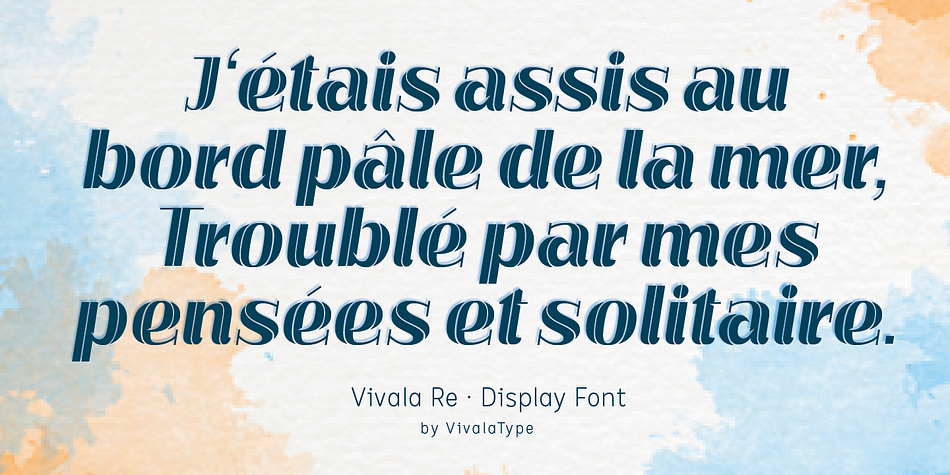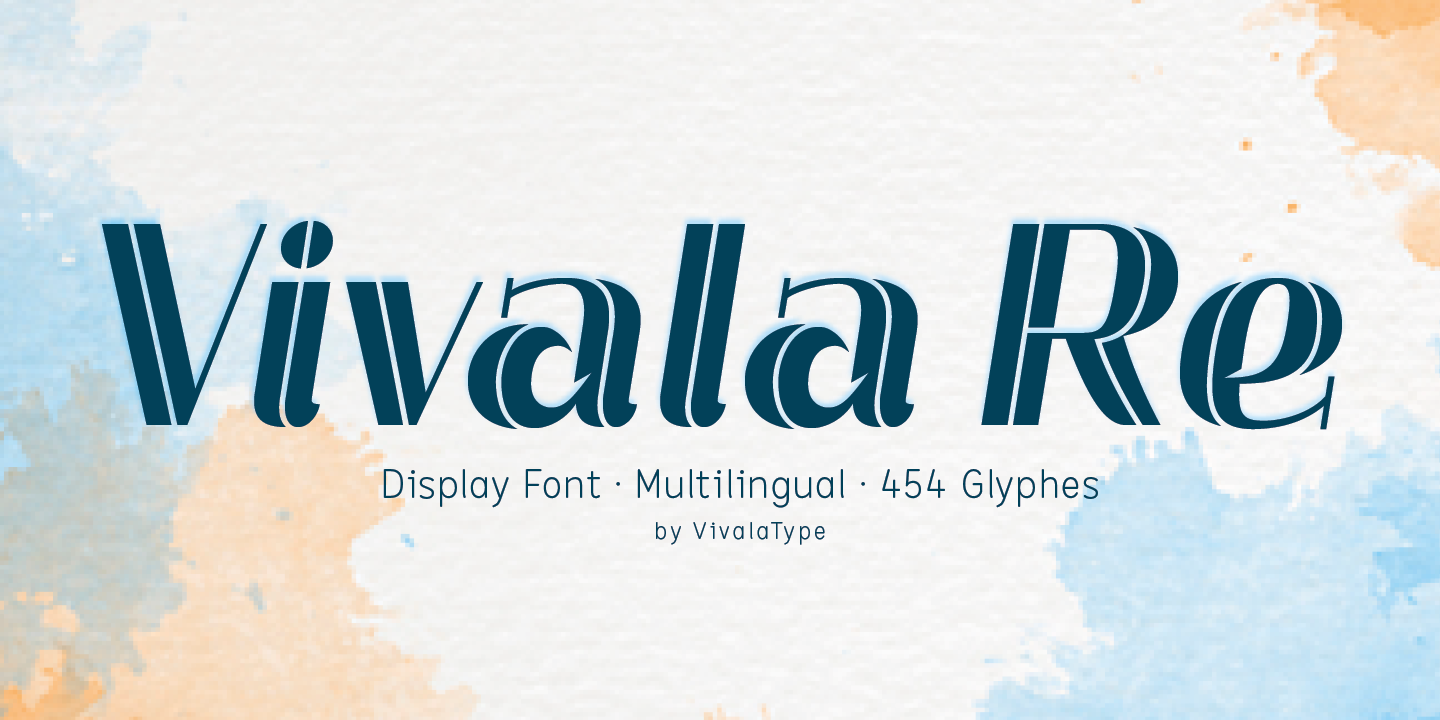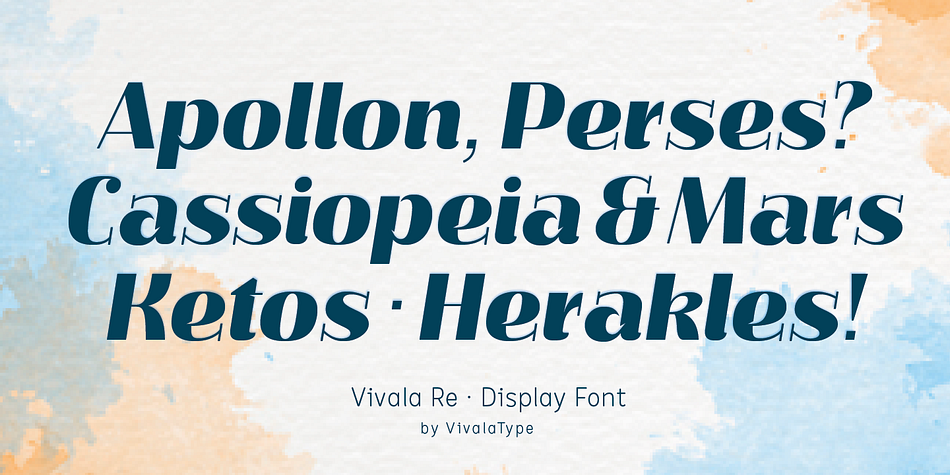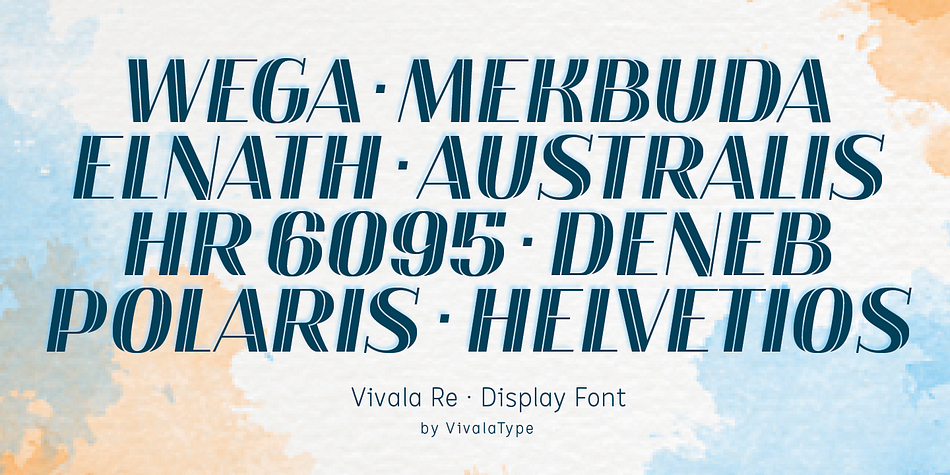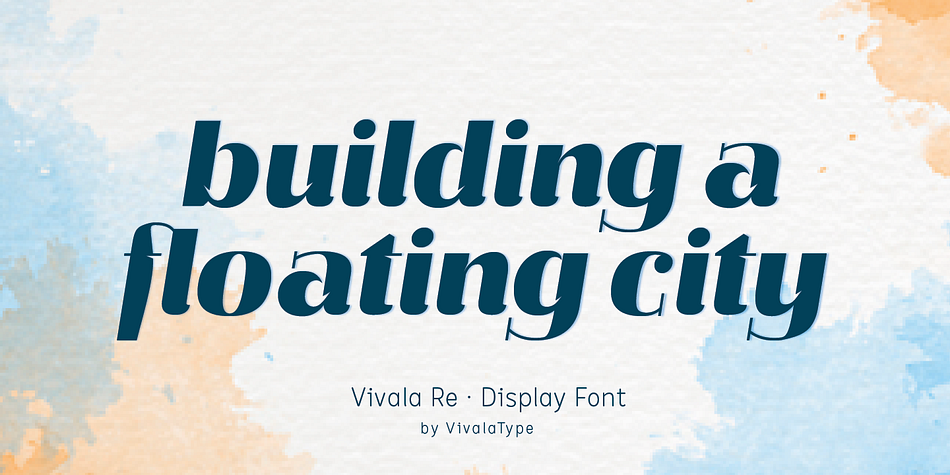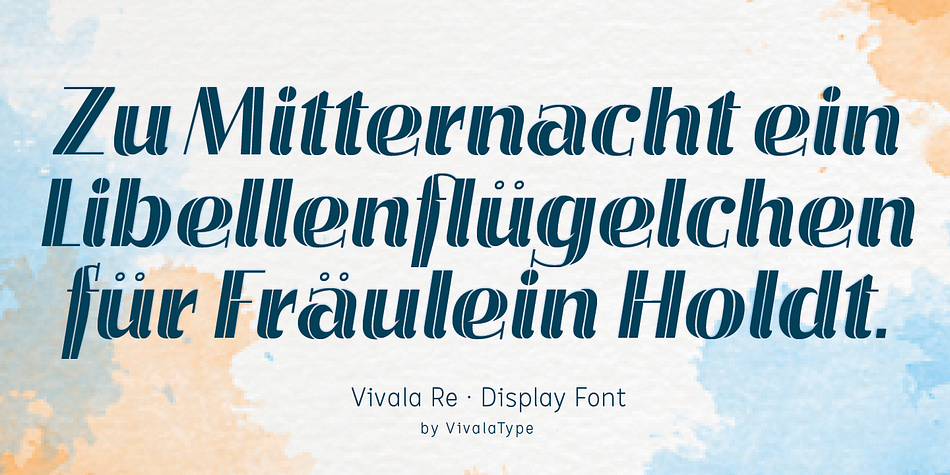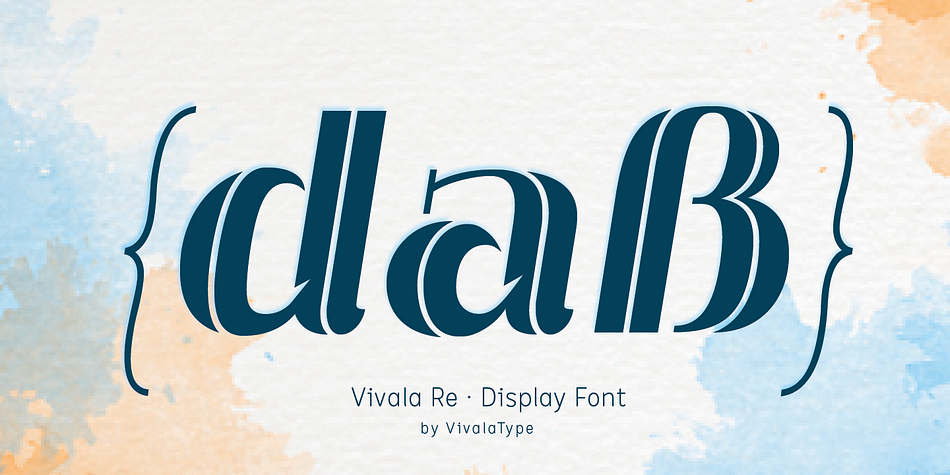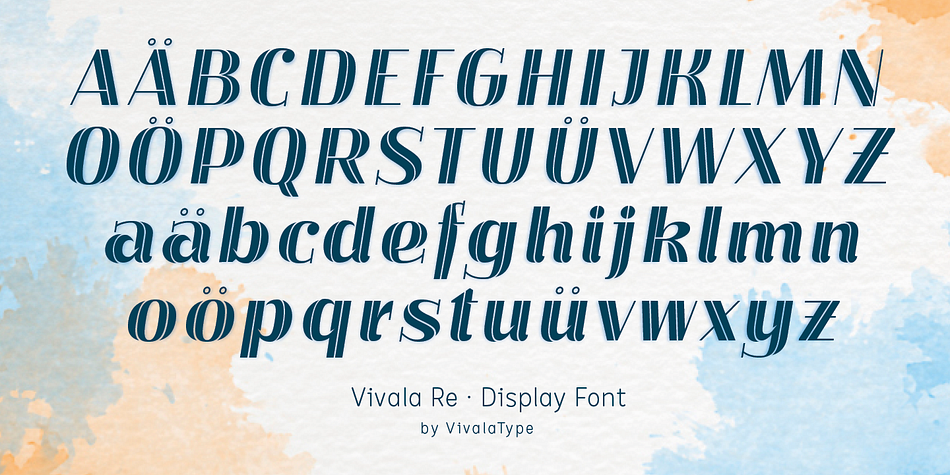
Designed by Johannes Hoffmann, Vivala Re is a display font family. This typeface has two styles and was published by Johannes Hoffmann.
The design of Vivala Re highlights a powerful contrast between thin curved lines and straight stems. The inline style is not limited to the inside of the strokes but is actively incorporated into the design. This font is well suited for all headlines in posters, book design, magazines, brochures and web design.
Foundry | Johannes Hoffmann |
Designer | Johannes Hoffmann |